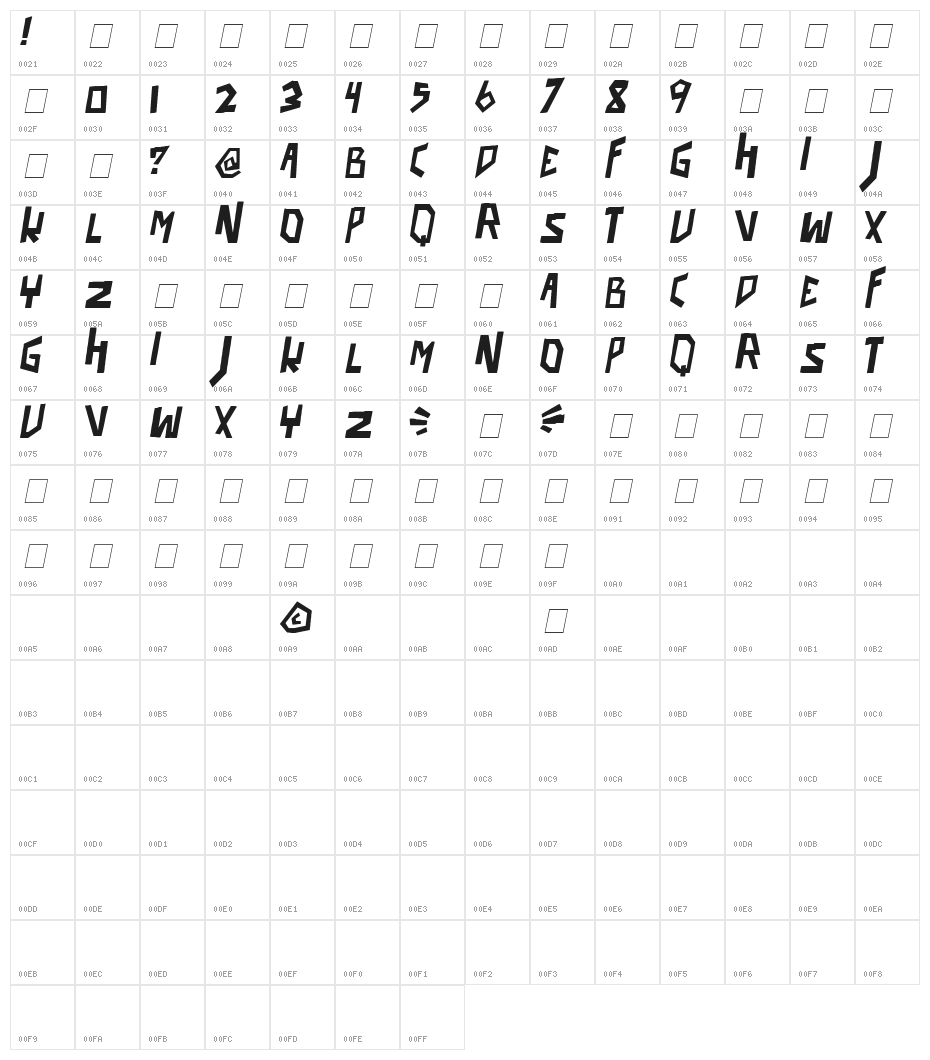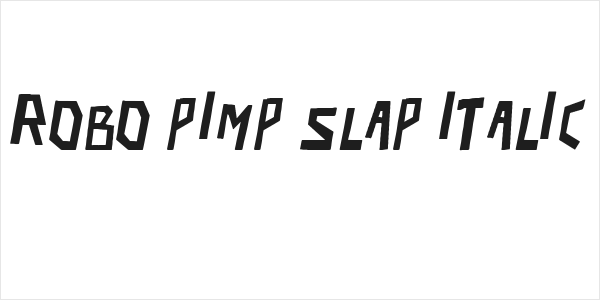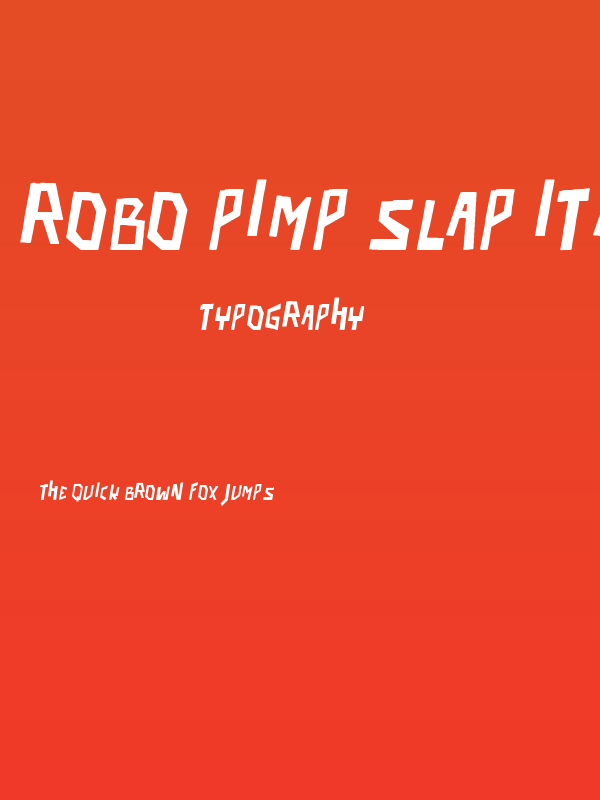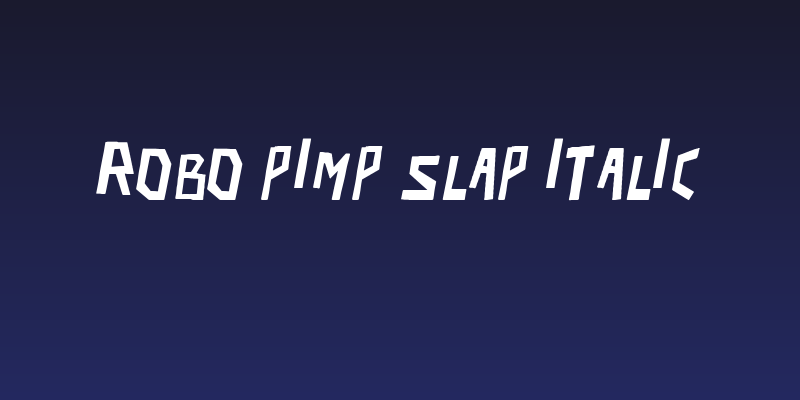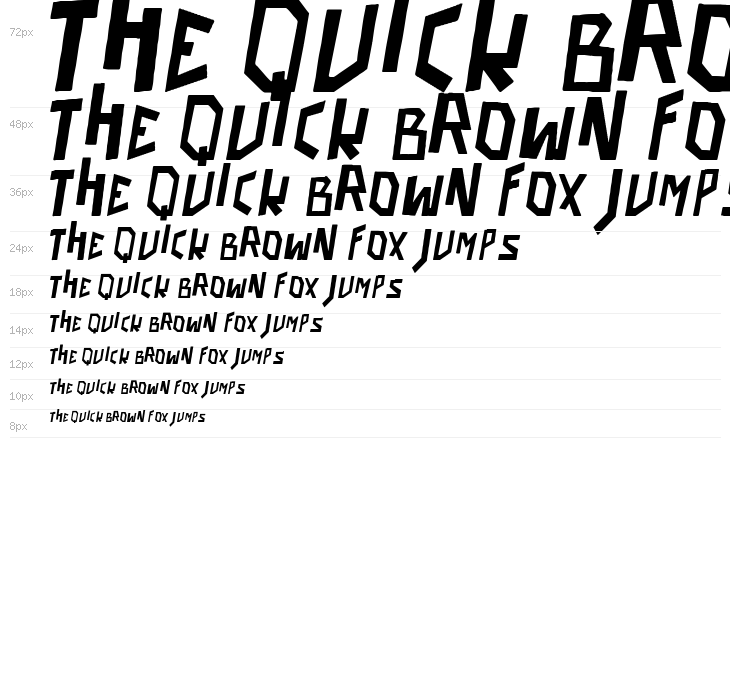
robo pimp slap Italic Font
robo pimp slap Italic Description
This font features a bold and angular design with a futuristic and edgy aesthetic. The characters are sharply cut with a distinct slant, giving it a dynamic and energetic feel. The uppercase and lowercase letters maintain a consistent style, with exaggerated angles and a slightly condensed form. The numbers follow the same angular theme, providing a cohesive look across all characters. The special characters are uniquely styled to match the overall design, making this font suitable for projects that require a modern and unconventional appearance.
| Proposed Projects | Ideal for sci-fi themed posters, video game titles, edgy branding, and modern graphic designs. |